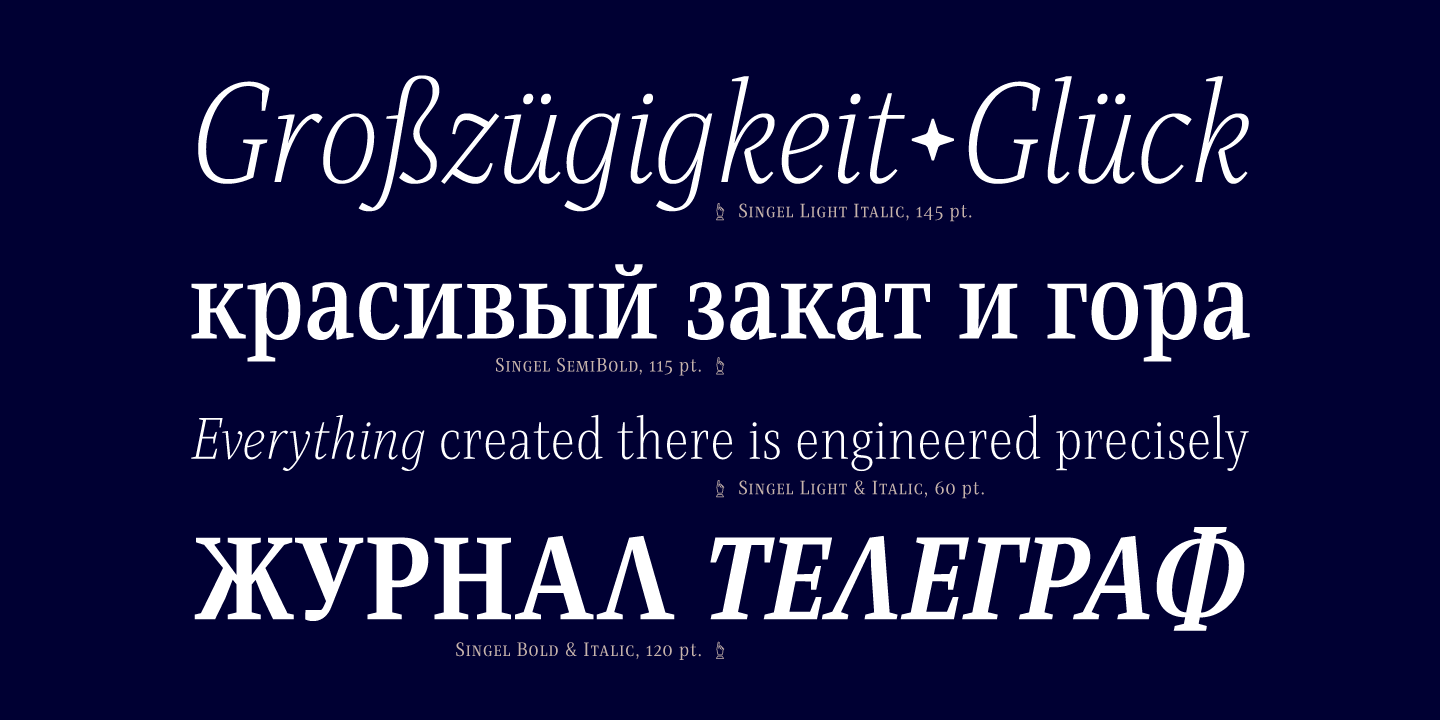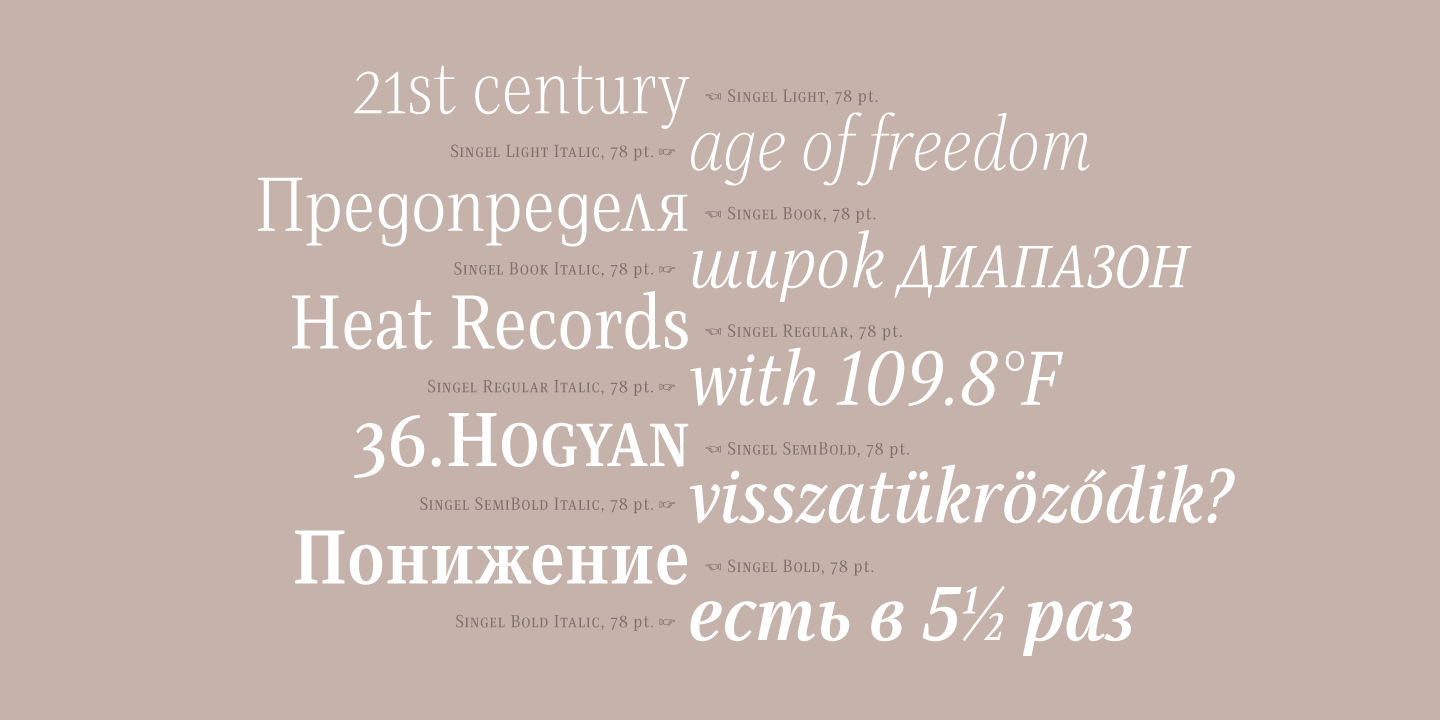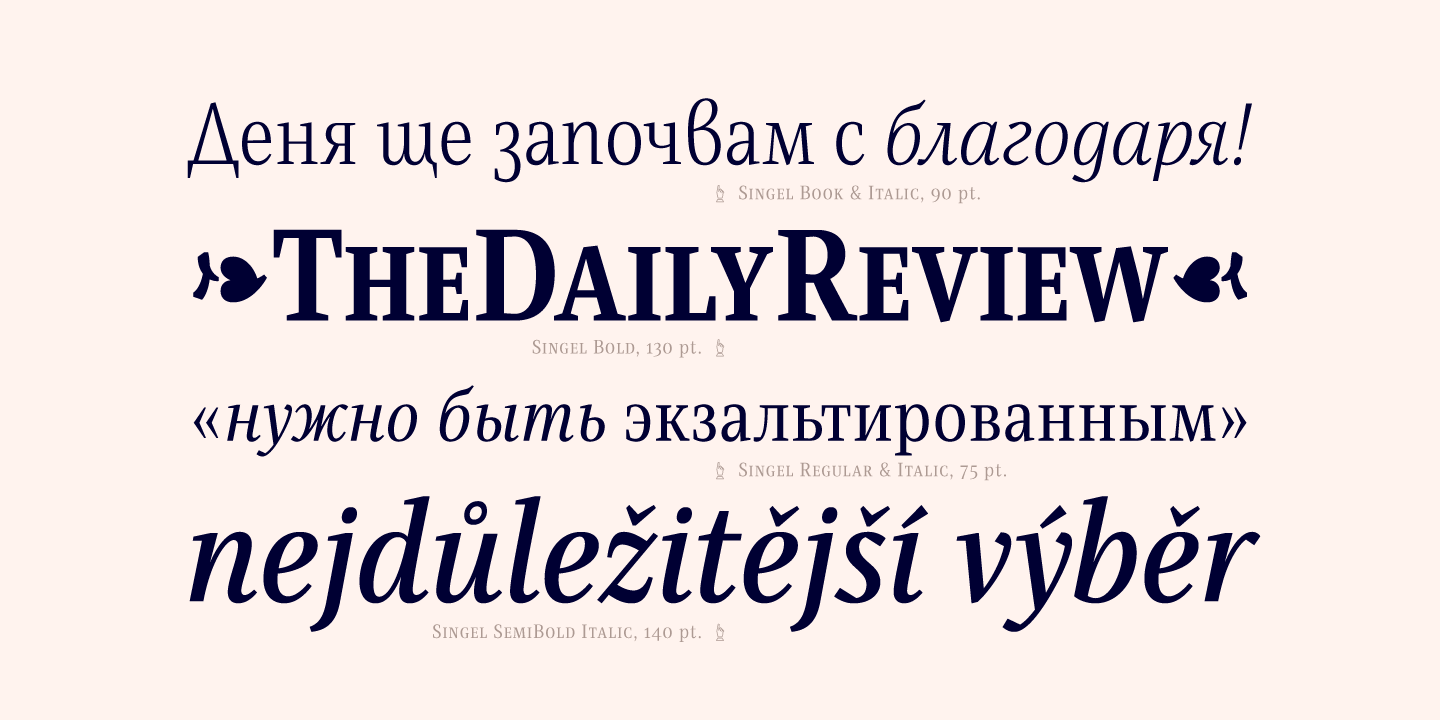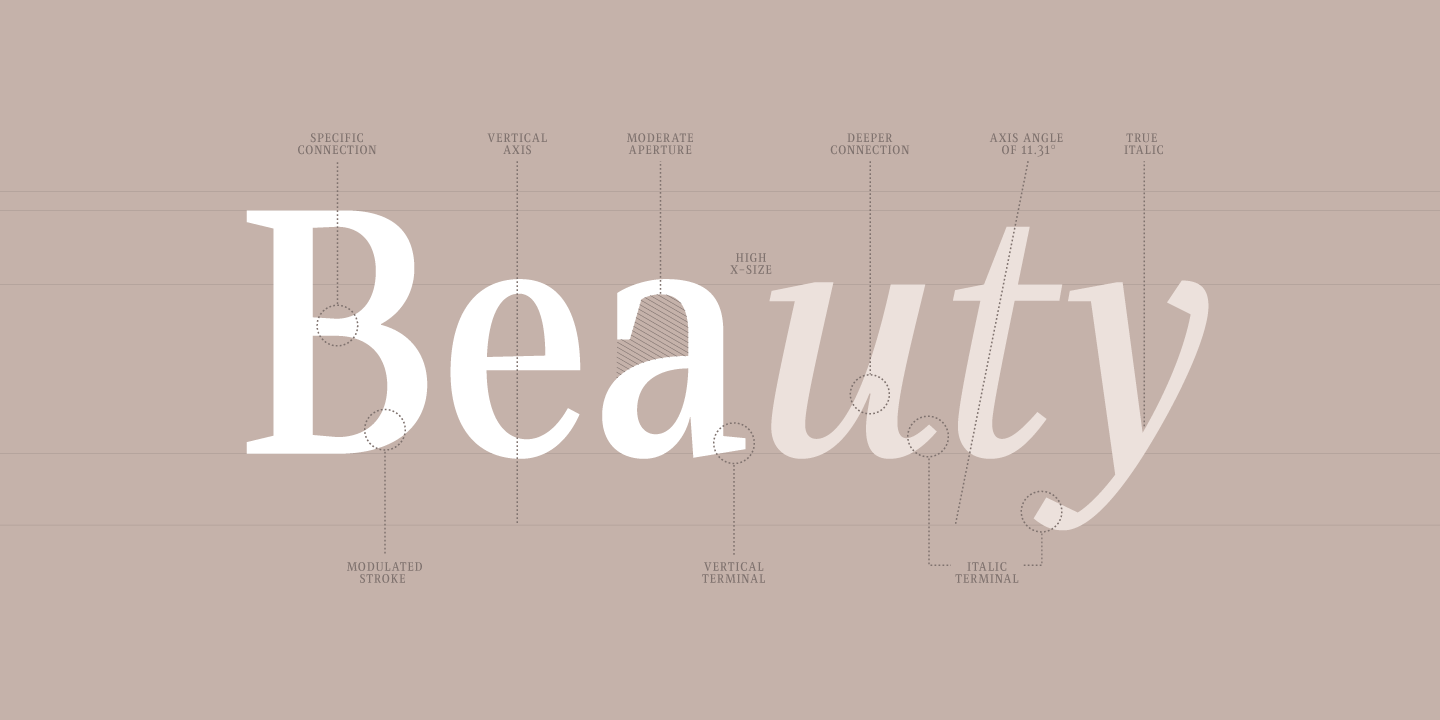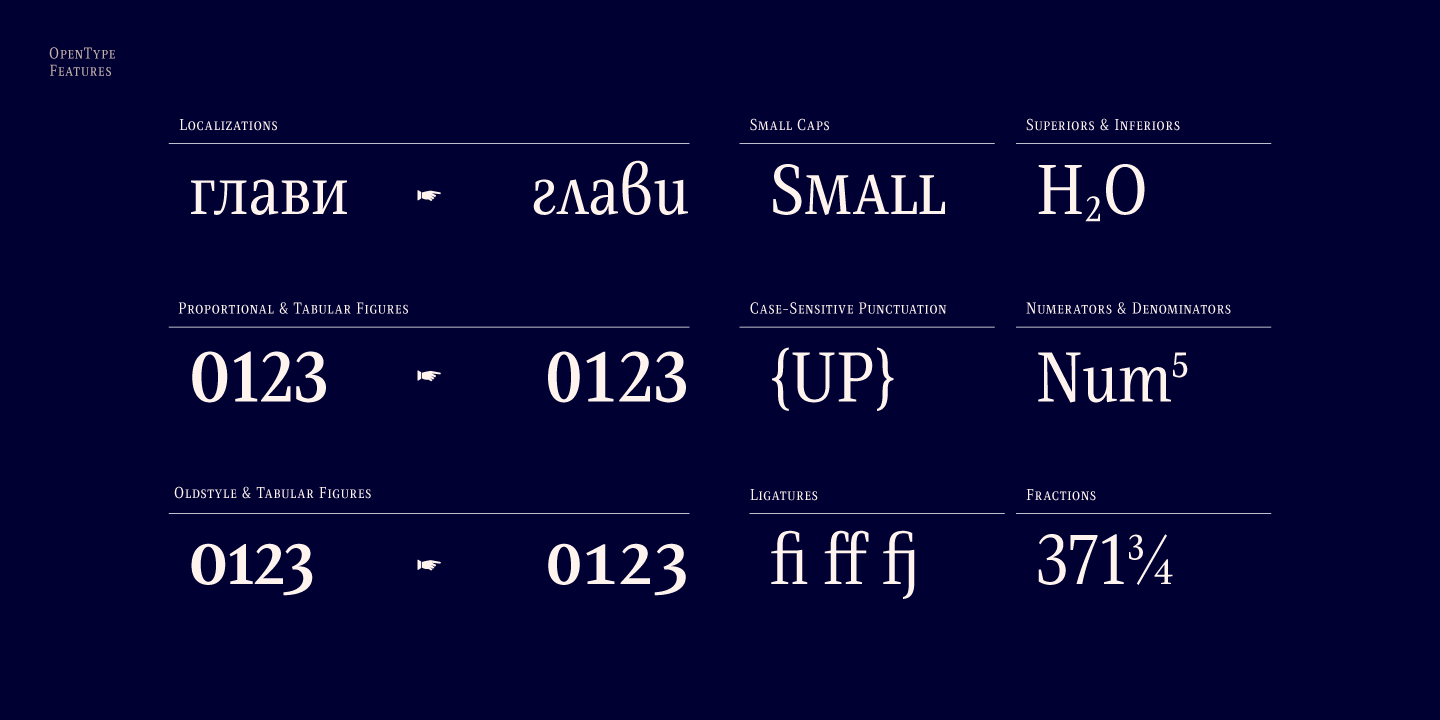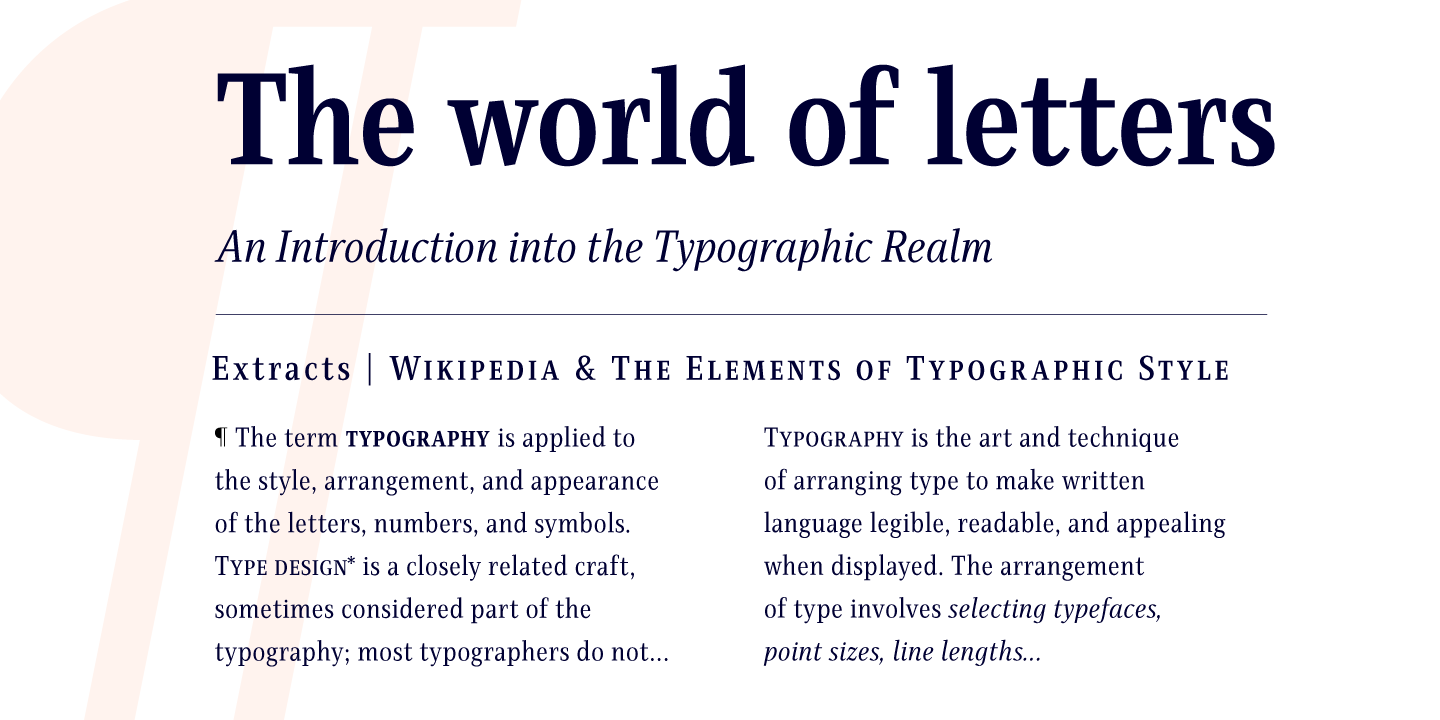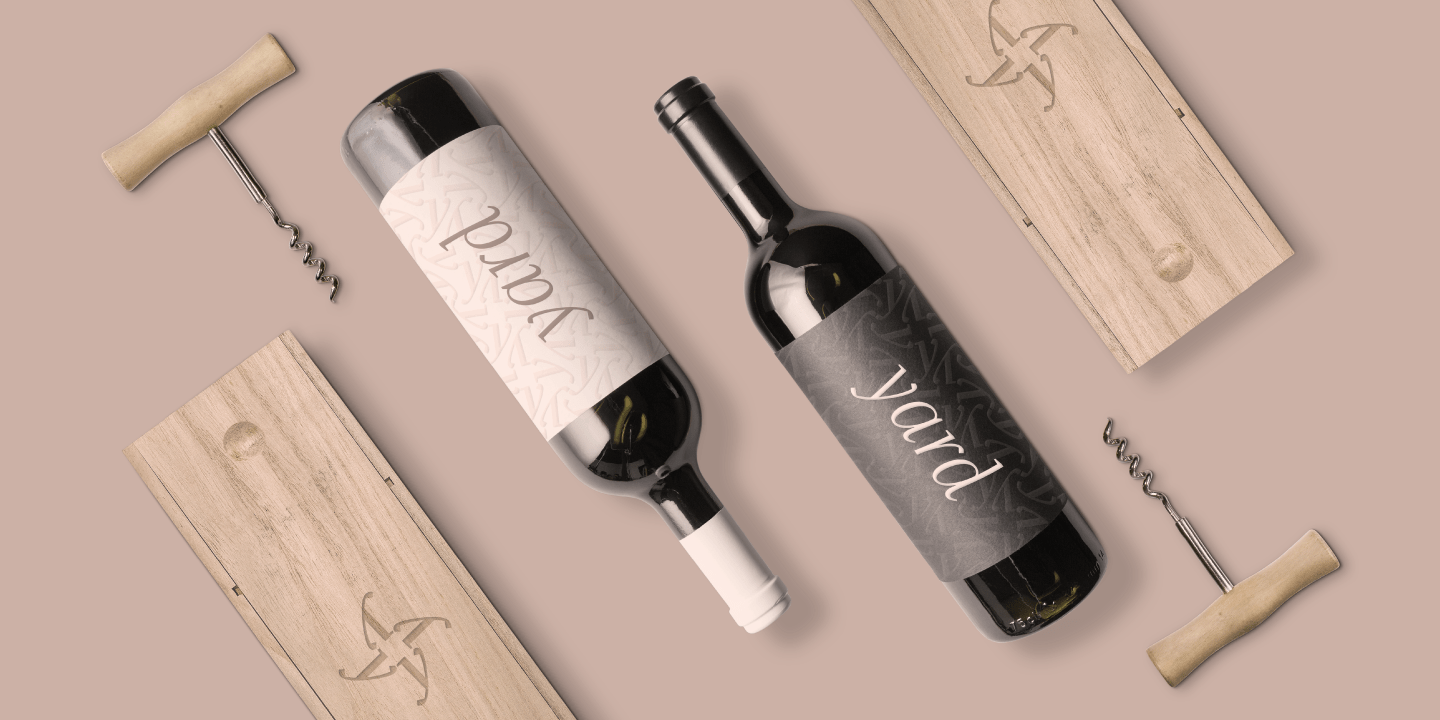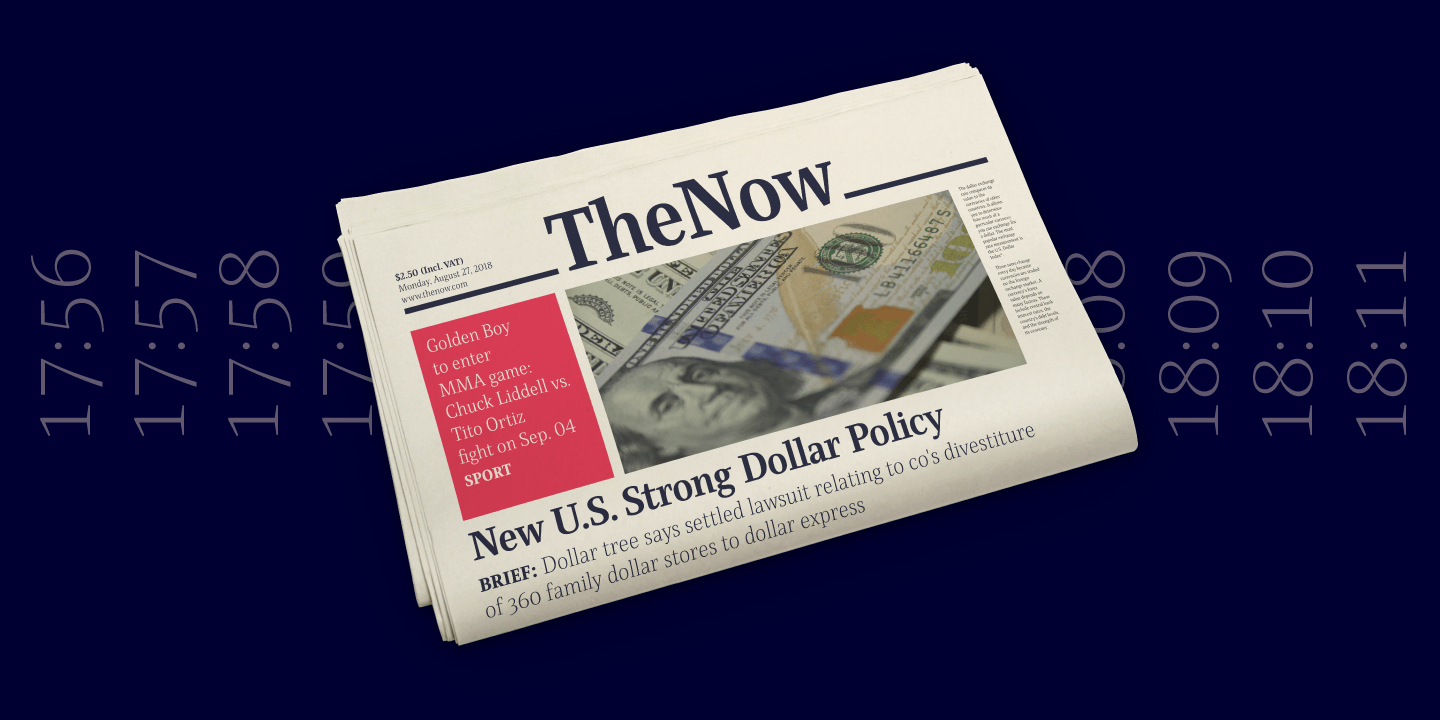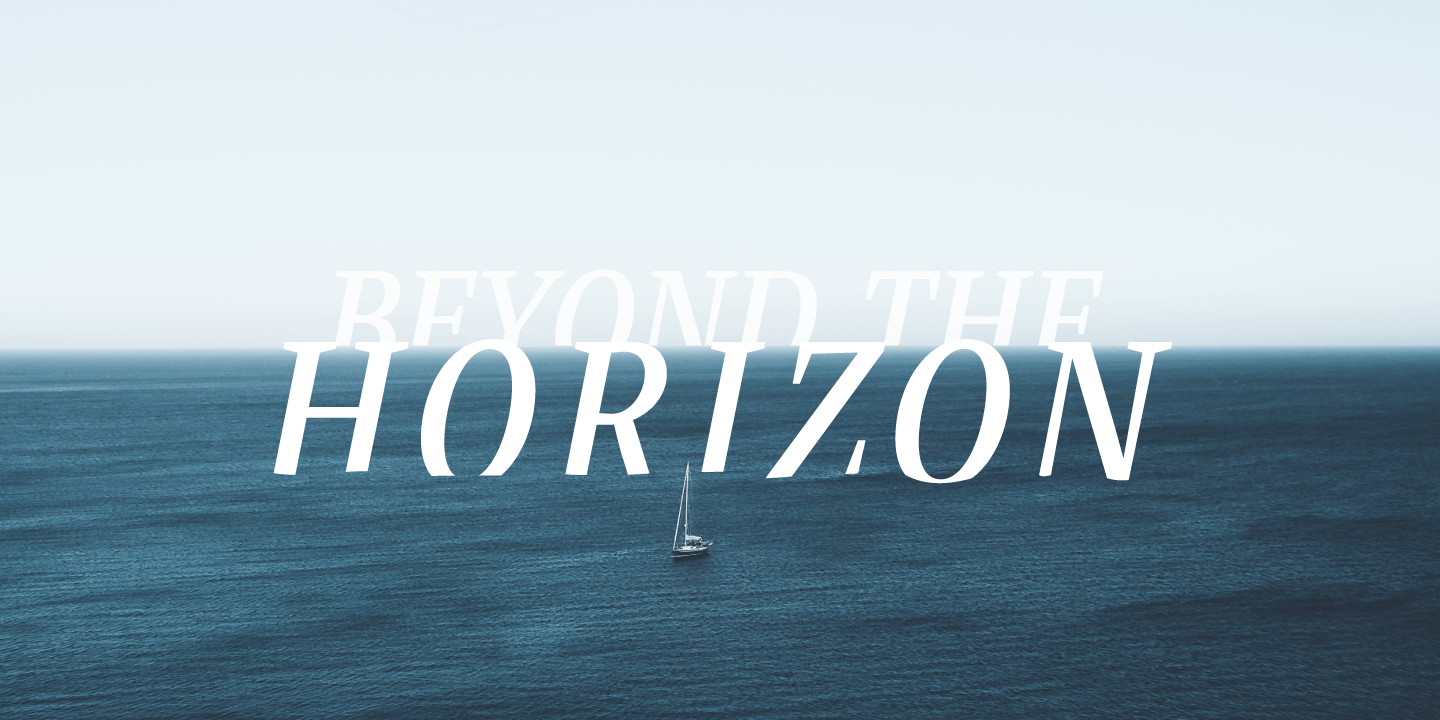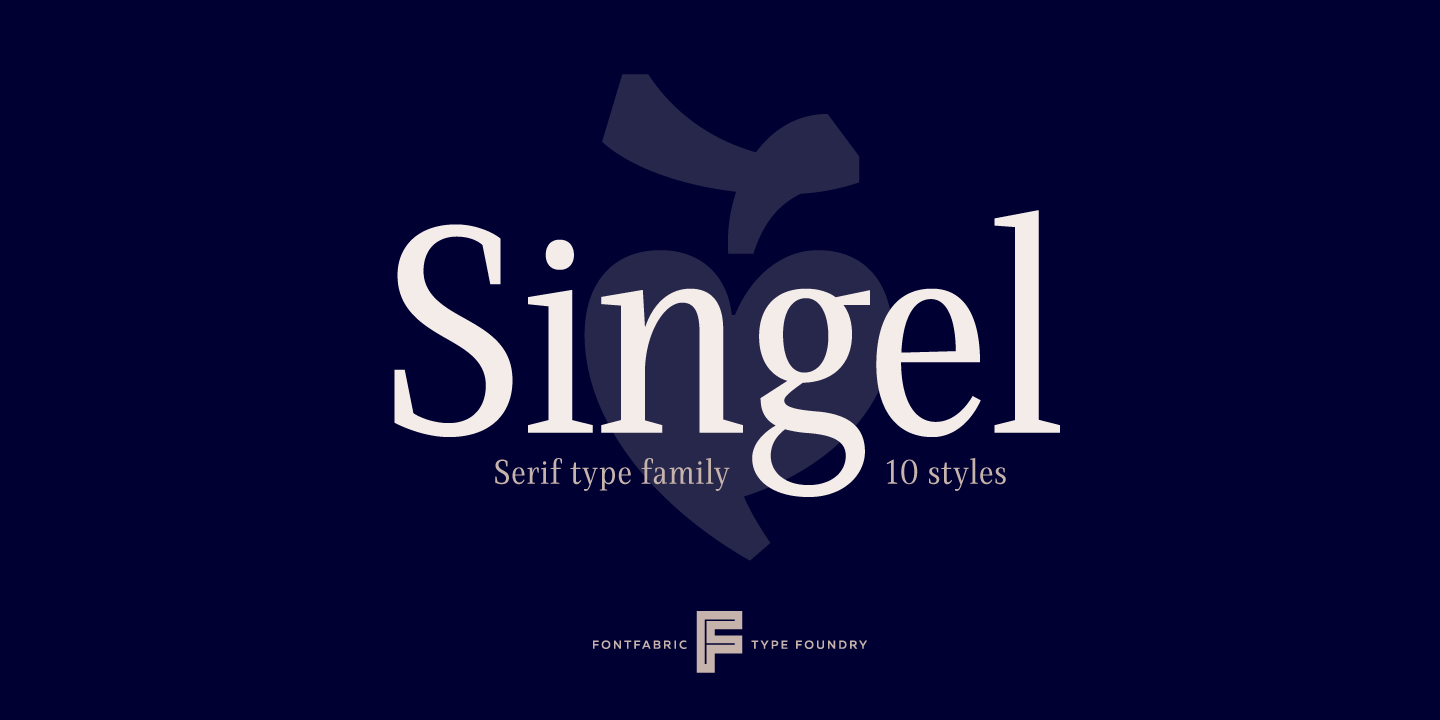
Singel
About Singel
Singel is a neoclassical serif with semi-condensed proportions. As a contemporary interpretation, this typeface combines the rationalist modulated stroke with an elegant silhouette and crisp serifs. The altogether splendid appearance of Singel, completed…